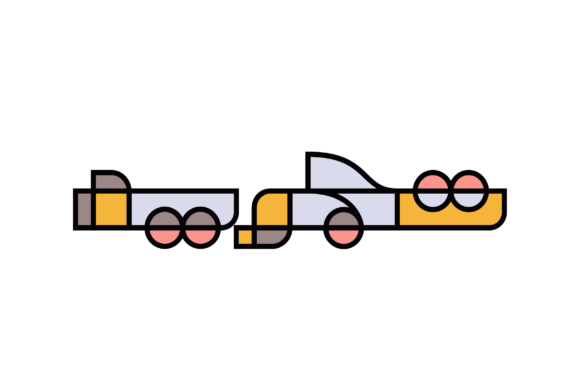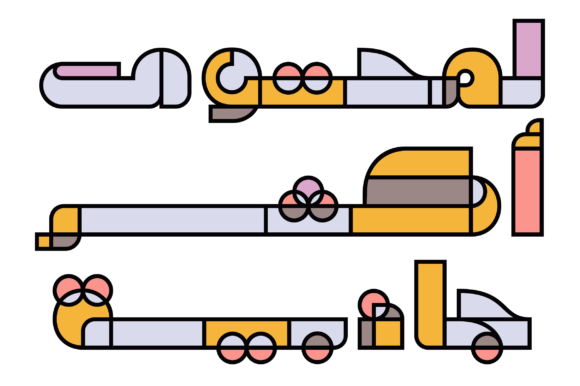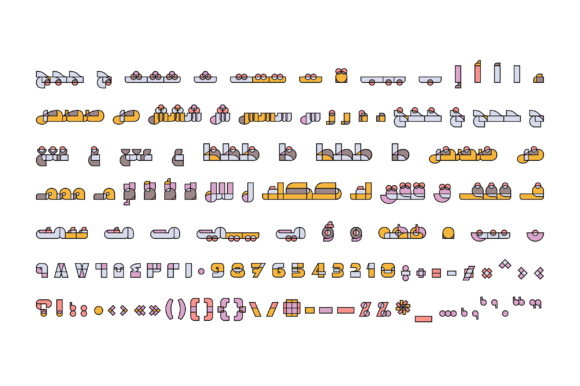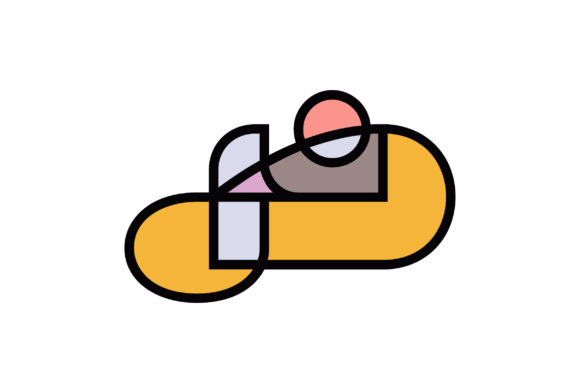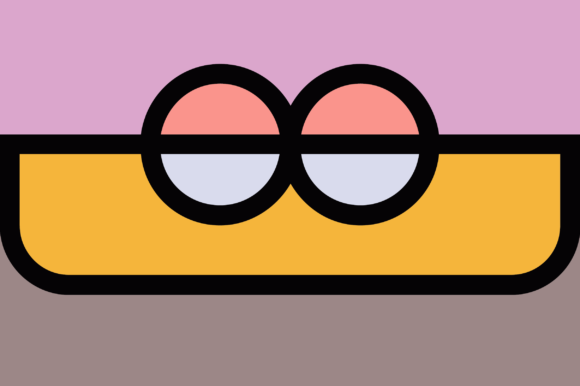
About Tajreed Font
Tajreed is indeed a captivating Arabic display font that draws inspiration from the world of Abstract art. With its unique design and multicolored twin variant, Tajreed offers a fresh and vibrant approach to Arabic typography.
This font is perfect for various creative projects, including graphic design, digital artwork, branding, and more. It adds a dynamic and contemporary touch to Arabic text, breaking free from traditional conventions and embracing the artistic freedom of Abstract art.
The fusion of abstract design elements and Arabic calligraphy in Tajreed creates a harmonious balance between tradition and modernity. It allows you to express your creativity and explore new possibilities in Arabic typography, pushing boundaries and creating visually striking compositions.
Embrace the captivating nature of Tajreed and let it bring a fresh and innovative perspective to your Arabic designs. Whether you’re creating digital art, branding materials, or any other creative project, Tajreed will undoubtedly make a bold statement and leave a lasting impression. Enjoy exploring the limitless possibilities that Tajreed offers and unleash your creativity with this captivating font.